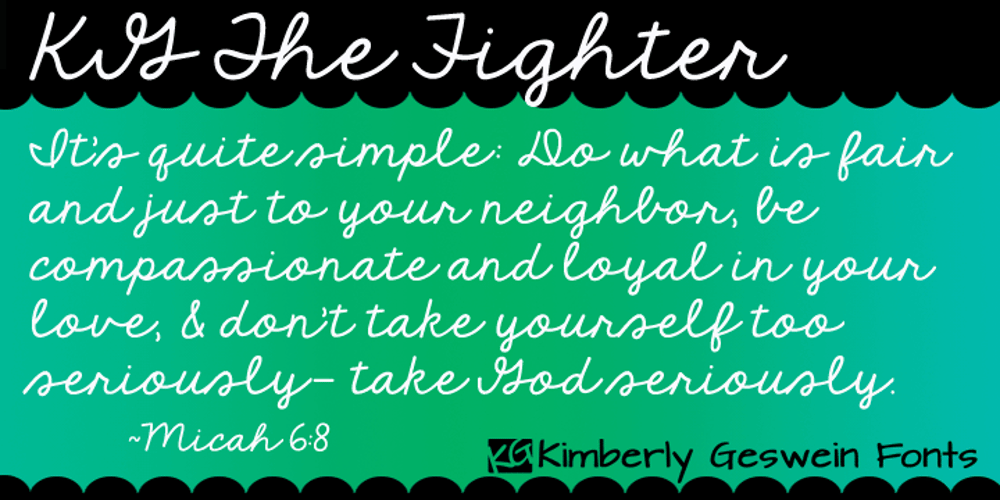
KG The Fighter Font Family was designed by Kimberly Geswein and published by Kimberly Geswein. KG The Fighter contains 1 styles and family package options. This pretty script is neat and legible and nicely connected.